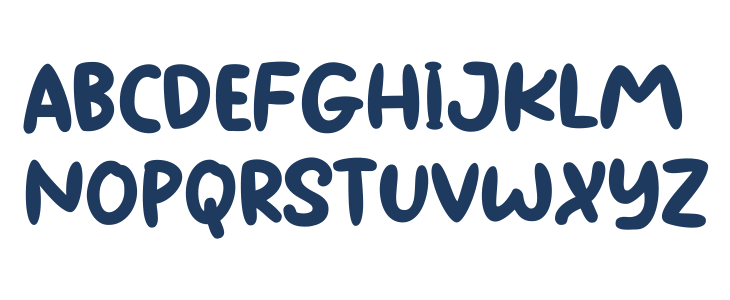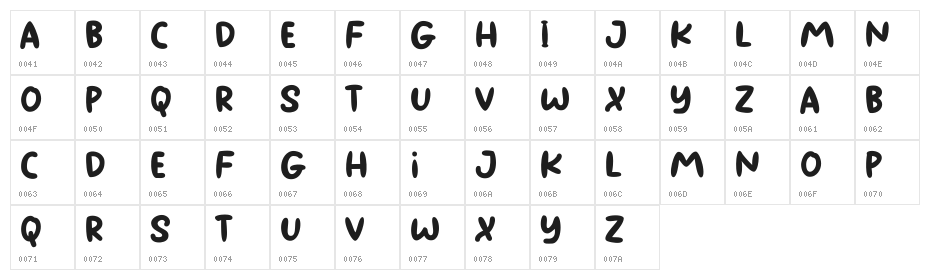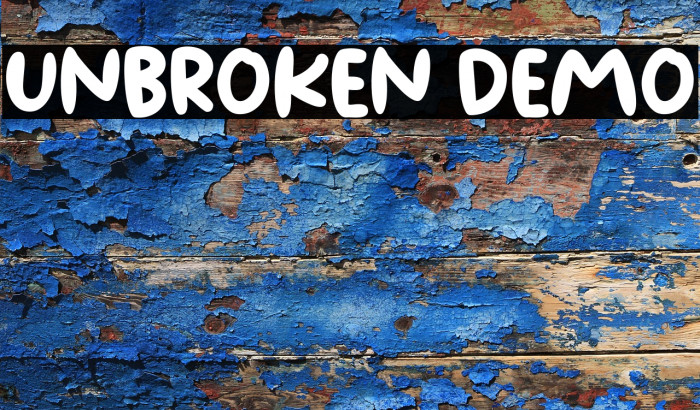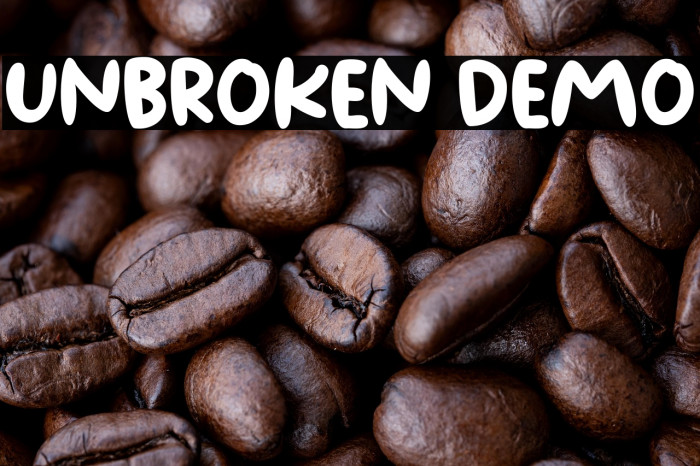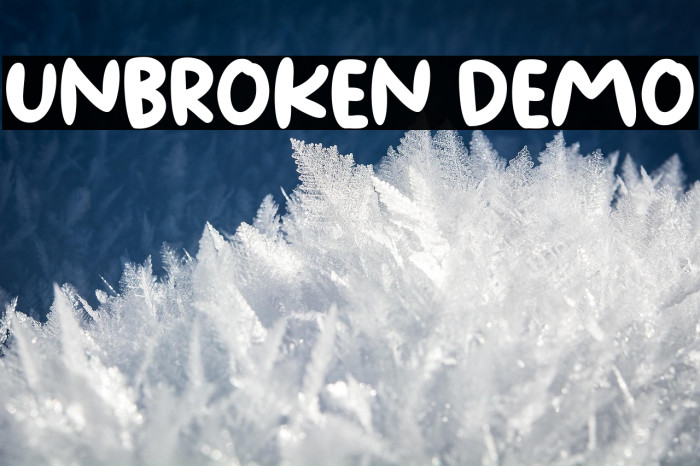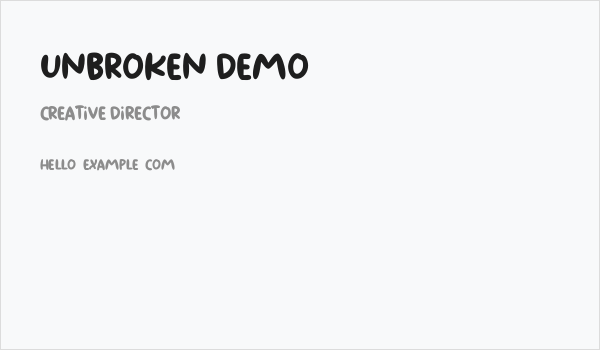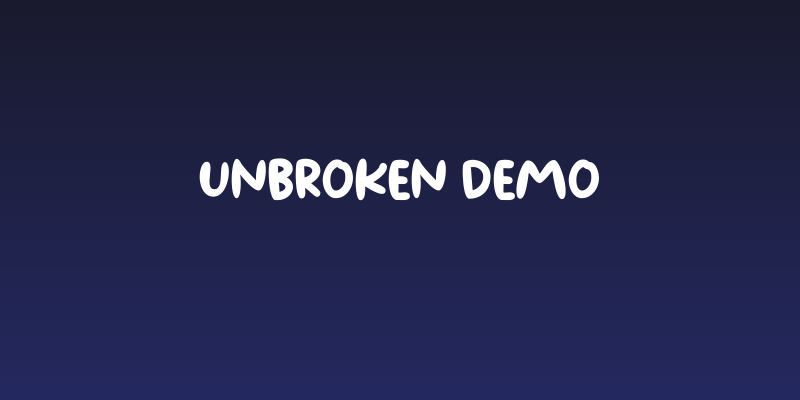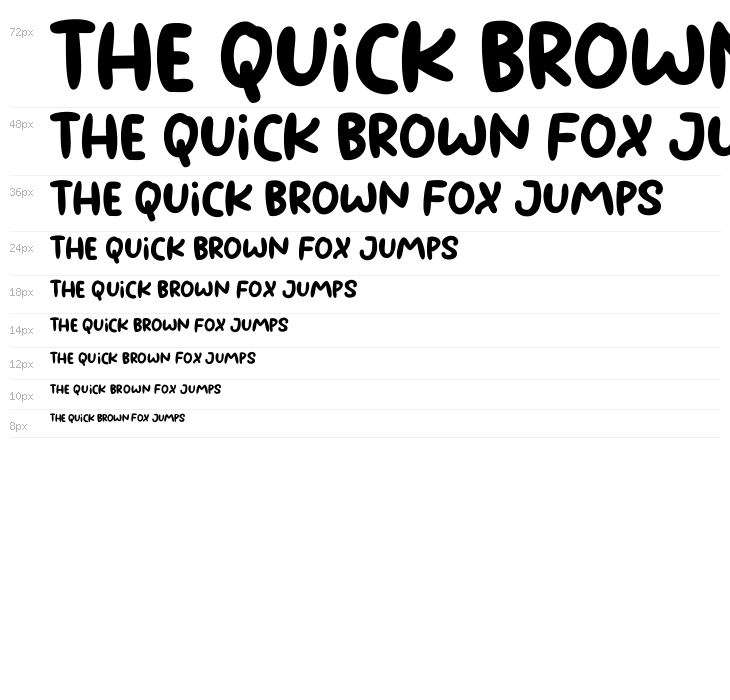
Unbroken Demo Font
Unbroken Demo Description
A bold, rounded, playful sans-serif font with a hand-drawn, casual appearance. The characters have a consistent stroke weight with smooth curves and slightly irregular shapes, giving it an informal and friendly feel.
| Overall Style | Playful, Casual, Hand-drawn |
| Proposed Projects | Children's books, casual branding, informal invitations, posters, and playful digital content. |